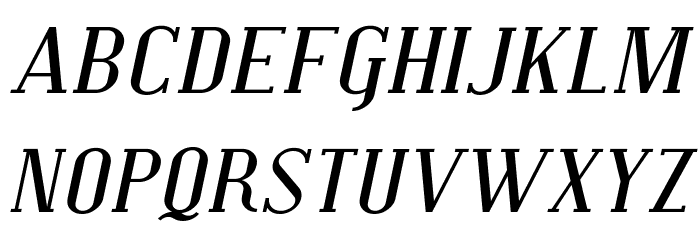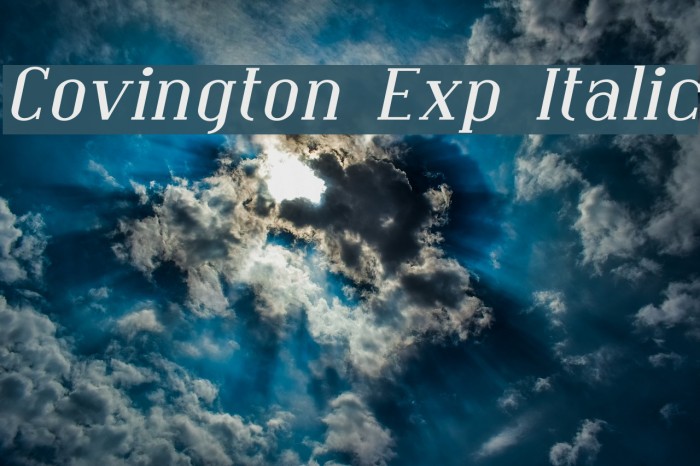
Covington Exp Italic Font
This font features an elegant and sophisticated italic style, characterized by its slanted and flowing letterforms. The strokes are moderately thick, providing a balanced contrast that enhances readability while maintaining a stylish appearance. The uppercase letters are tall and slightly condensed, giving a sense of formality and grace. Lowercase letters are well-proportioned, with smooth curves and a consistent slant that adds to the overall fluidity. Numerals are clear and distinct, ensuring legibility in various contexts. The special characters are thoughtfully designed, complementing the overall aesthetic of the font. This typeface is perfect for projects that require a touch of elegance and sophistication.
An elegant italic font with balanced contrast and flowing letterforms.
- Proposed Projects: Ideal for wedding invitations, luxury branding, editorial design, and elegant packaging.
- Overall Style: Classic
- Use Case: Headlines, Logos, Invitations